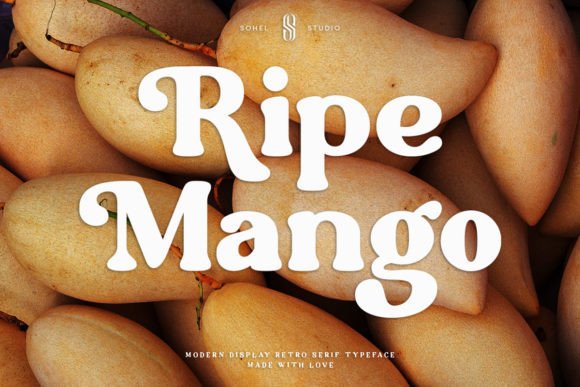
Introducing Ripe Mango Font, the ultimate choice for all your gaming banner needs. Created by the talented team at Sohel Studio, this retro display serif font is here to elevate your designs to a whole new level. Get ready to embark on a journey back in time as this font exudes a classic charm and bold character that will captivate your audience.
Inspired by the iconic retro styles, Ripe Mango Font is the perfect blend of nostalgia and modernity. Its elegant touch and timeless appeal will transport you to a bygone era, while still keeping your designs fresh and relevant. Whether you're a gaming enthusiast or a professional designer, this font is a must-have in your creative arsenal.
Each letter of Ripe Mango Font has been meticulously crafted with utmost care and attention to detail. Every curve, every stroke is a work of art, resulting in a visually appealing and unique appearance. The proportions are perfectly balanced, ensuring that your text stands out and leaves a lasting impression.
But what sets Ripe Mango Font apart from the rest? Its versatility. Not only is it the best font for gaming banners, but it also shines in a multitude of other design projects. From logo designs to posters, from websites to social media graphics, this font can do it all. Its adaptability makes it a valuable asset for any creative endeavor.
But it's not just about aesthetics. Ripe Mango Font is a powerhouse when it comes to SEO. With its keyword-rich composition, your website will rank higher in search engine results, attracting more organic traffic and potential customers. Say goodbye to unnoticed designs and hello to increased visibility and engagement.
Now, let's talk about emotions. Ripe Mango Font evokes a sense of excitement, adventure, and nostalgia. It transports your audience to a world where gaming was the ultimate form of entertainment. It sparks curiosity and creates a connection with your viewers, enticing them to explore further and engage with your content.
In conclusion, Ripe Mango Font is more than just a font. It's a journey, an experience, and a powerful tool for your creative endeavors. With its retro charm, meticulous craftsmanship, versatility, and emotional appeal, it's the perfect choice for anyone looking to make a statement with their designs. So, what are you waiting for? Unlock the true potential of your gaming banners and download Ripe Mango Font today!